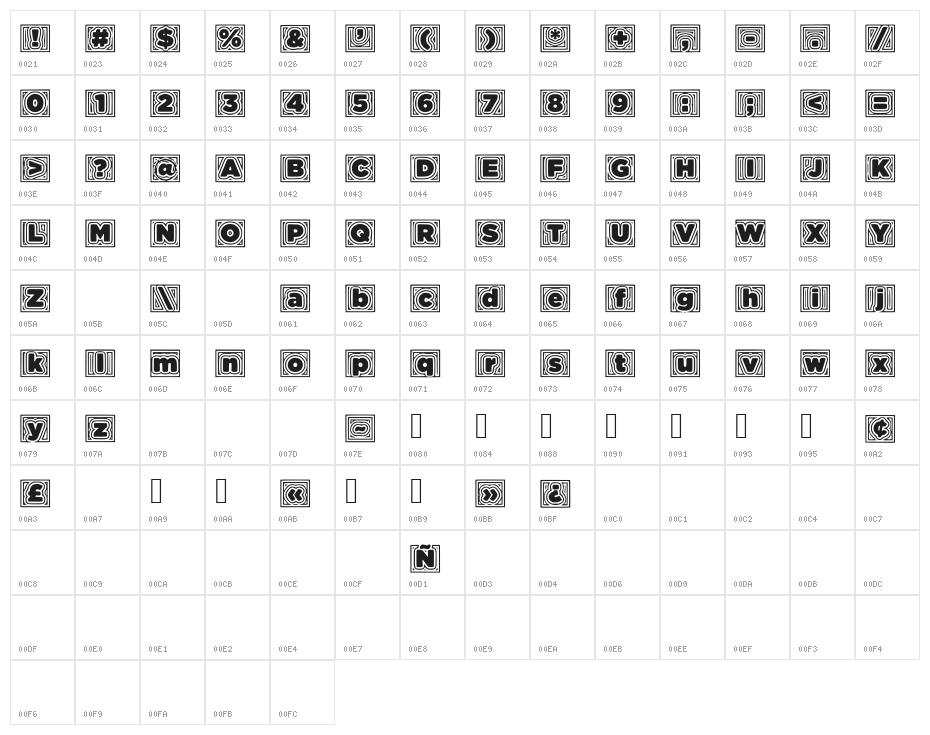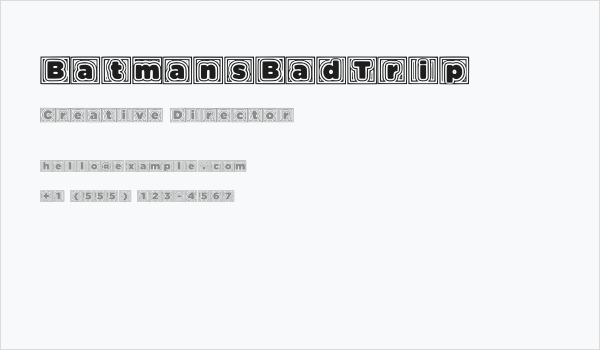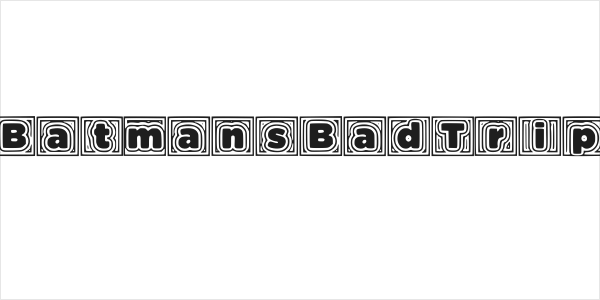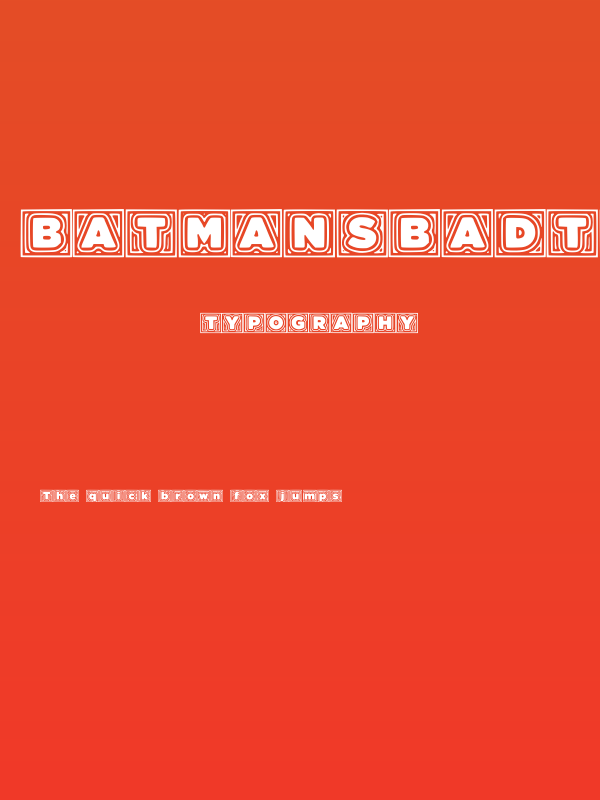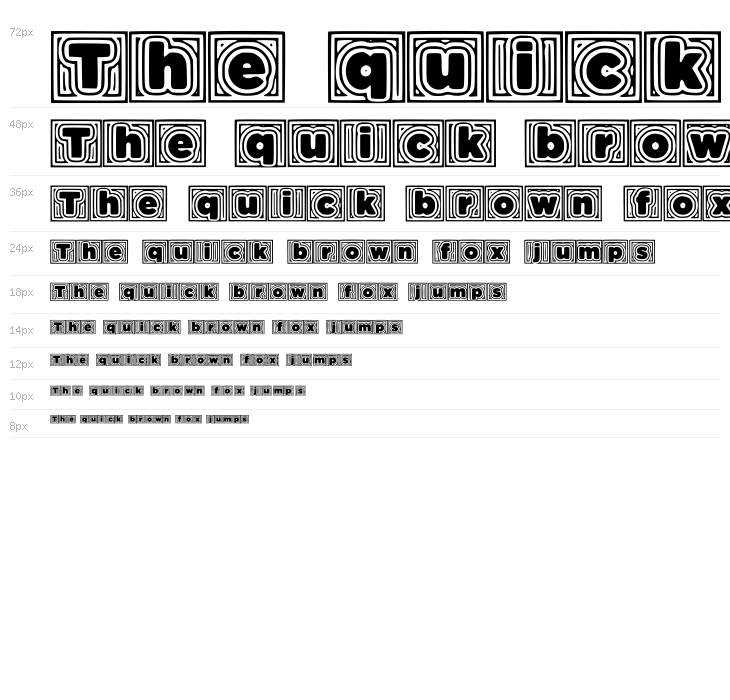
BatmansBadTrip Font
BatmansBadTrip Description
This decorative font features bold, uppercase and lowercase letters, numbers, and special characters enclosed within a unique, multi-layered square outline. The letters themselves are thick and rounded, creating a playful and eye-catching appearance. The intricate border adds depth and complexity, making it stand out for creative and artistic projects. The font's design is reminiscent of a psychedelic or retro style, with its bold outlines and layered effects. It is ideal for projects that require a distinctive and memorable typeface.